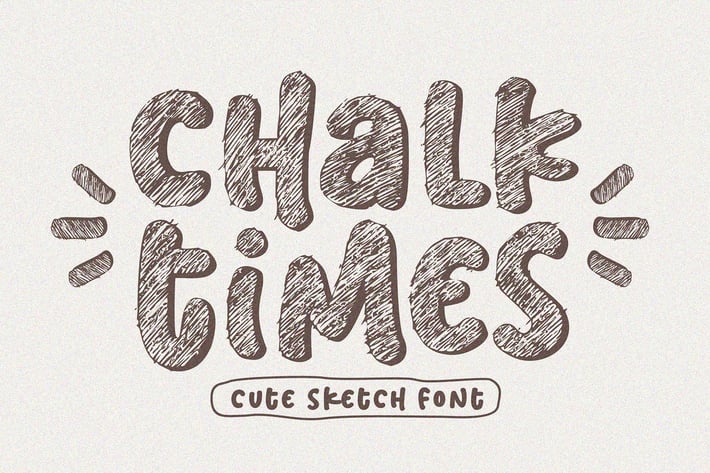
Chalk Times - Sketch Font
Chalk Times is a cute, bubbly and friendly outlined display font. Its a pencil sketch font style.
Feel natural and unique style makes it incredibly fitting for a large pool of designs.
Have fun with this beautiful font and explore its endless variations.